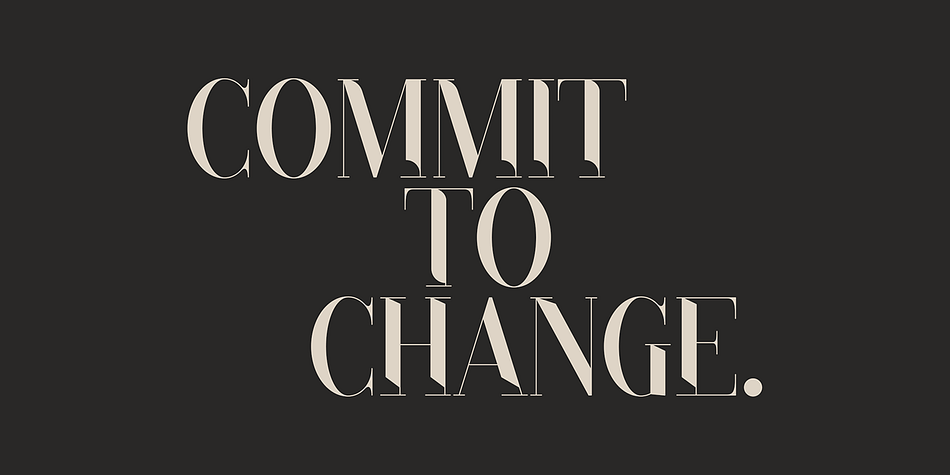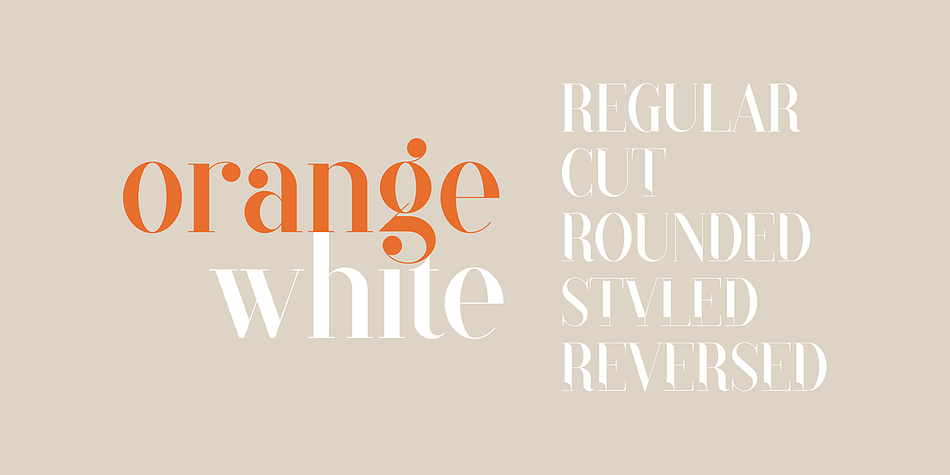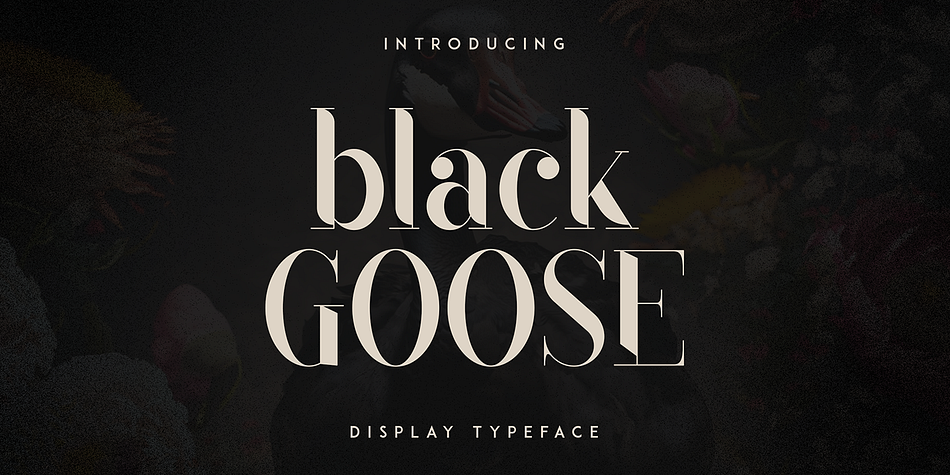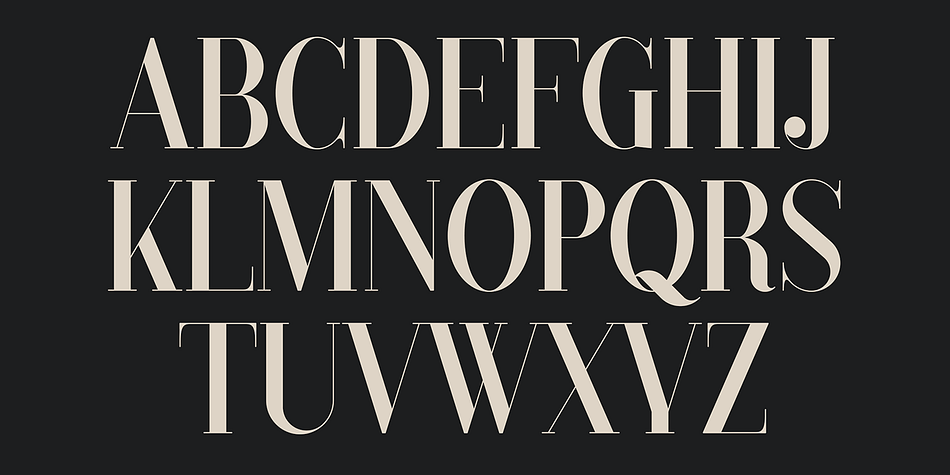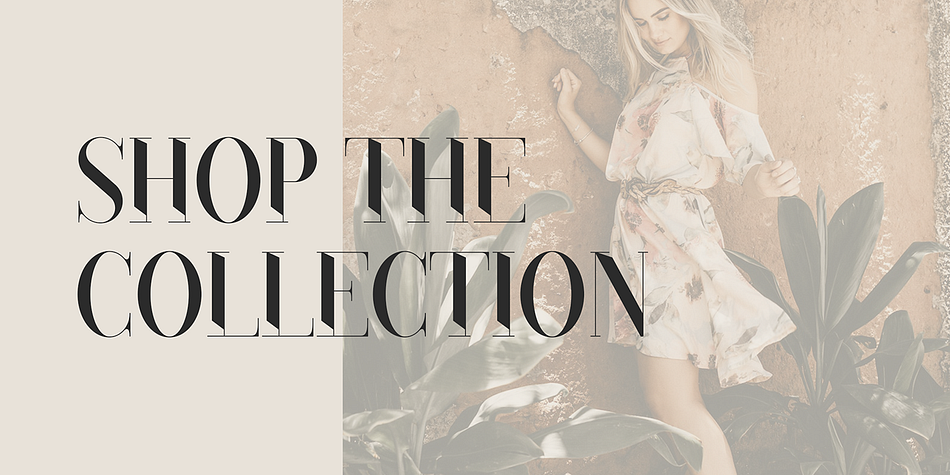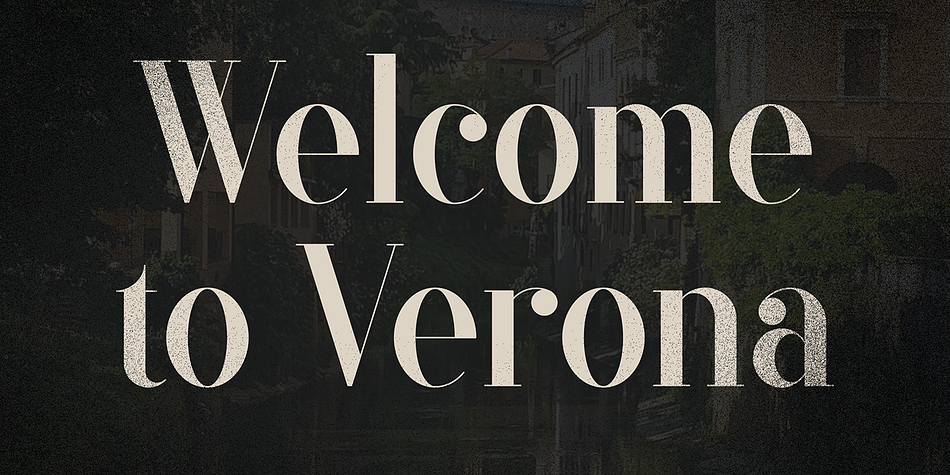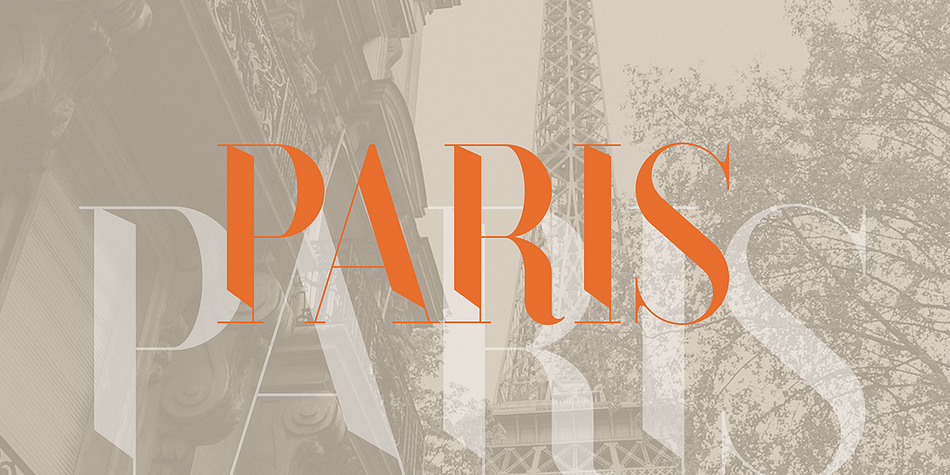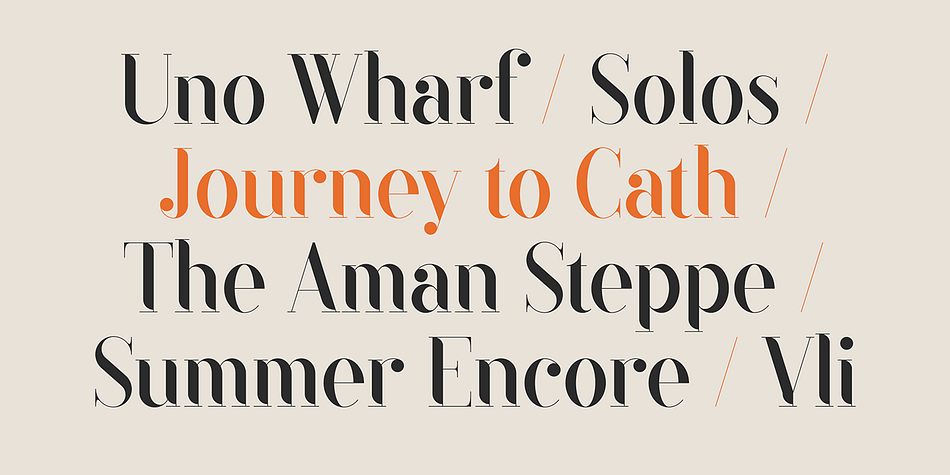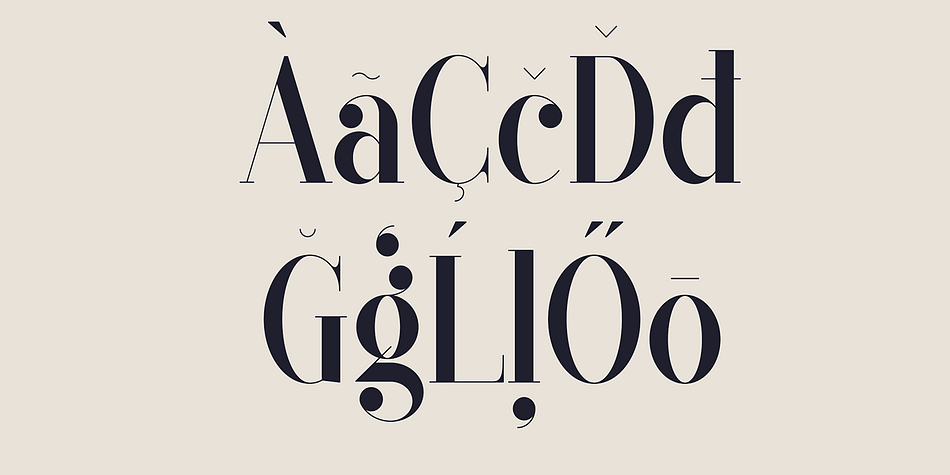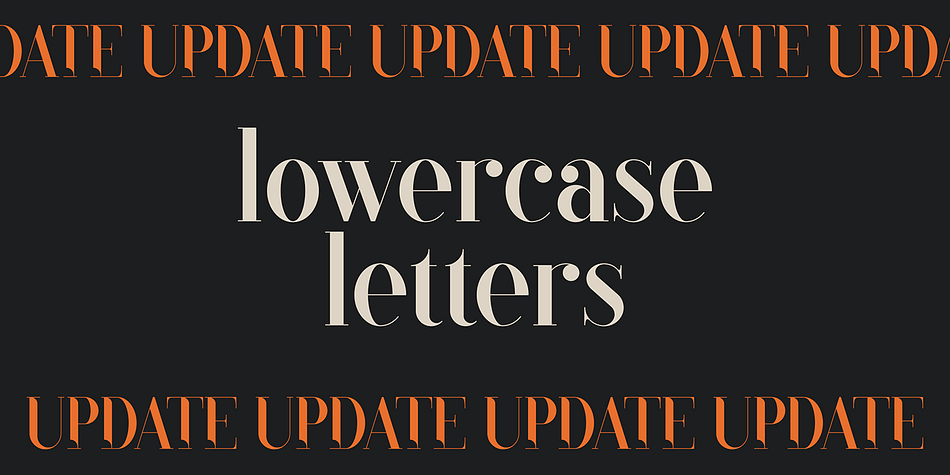
Black Goose
Black Goose is a serif font family. This typeface has five styles and was published by VPcreativeshop.
Black Goose is a display typeface with regular, cut, styled, rounded, and reversed font styles. It adds elegance, modernity, playfulness, approachability, and intrigue to your designs. Supporting 87 languages, it ensures effective communication across diverse audiences.
If you’re looking for a more edgy and contemporary vibe, the cut style of Black Goose will be perfect for you. With its sharp angles and distinct cuts, it adds a bold and modern twist to your designs, making them stand out from the crowd.
For those seeking a touch of playfulness and uniqueness, the styled variant of Black Goose offers decorative elements that enhance the overall design. It brings a sense of whimsy and creativity to your projects, making them visually captivating and memorable.